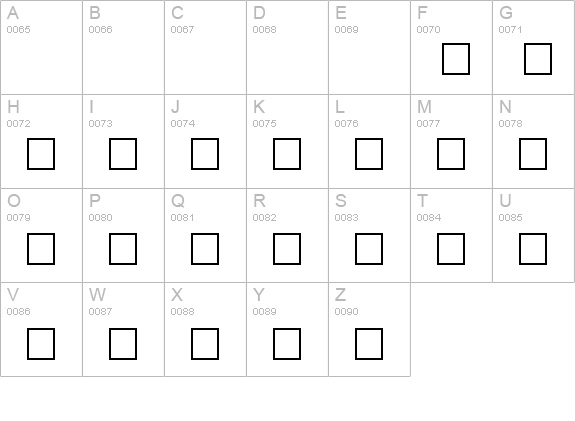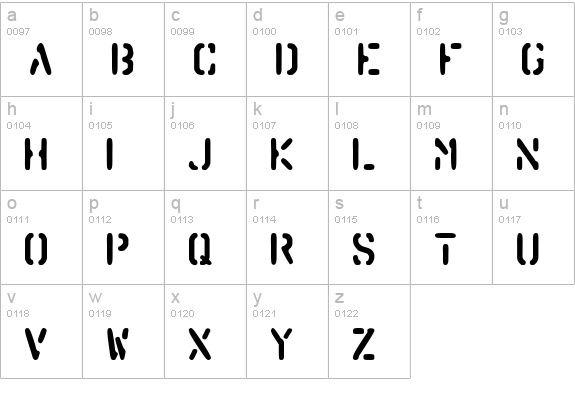
Ultra Font Details
Ultra is an extreme-weight, display variant in the Ultra typeface family \xE2\x80\x94 well suited to extreme display use where maximum visual weight is required.
Introducing Ultra font, the epitome of elegance and sophistication in the world of typography. With its sleek and modern design, Ultra font effortlessly captures attention and leaves a lasting impression on any project it graces. Whether you're creating a captivating logo, designing a striking headline, or crafting a visually stunning poster, Ultra font is the perfect choice to elevate your design to new heights. But what truly sets Ultra font apart is its availability for free! Yes, you read that right. Ultra font is freely available to download at FontsMarket.com, making it accessible to designers, creatives, and enthusiasts alike, without any financial constraints. This generous offering allows everyone to experience the beauty and versatility of Ultra font, without compromising on quality or style. Designed with meticulous attention to detail, Ultra font boasts perfect letterforms, flawlessly balanced spacing, and an exquisite selection of weights and styles. From its bold and powerful variations to its delicate and refined alternatives, Ultra font offers a wide range of possibilities to suit any design concept or artistic vision. With its clean lines and sophisticated curves, Ultra font exudes a sense of professionalism and refinement, making it ideal for a variety of applications. Whether you're working on branding projects, editorial designs, websites, or packaging, Ultra font effortlessly adapts to any context, conveying a sense of elegance and precision. So why wait? Embrace the limitless possibilities that Ultra font offers and enhance your designs with its timeless appeal. Download Ultra font for free at FontsMarket.com and watch your creations come to life with a touch of class and sophistication. Don't miss out on this rare opportunity to elevate your design game and make a lasting impression with Ultra font.